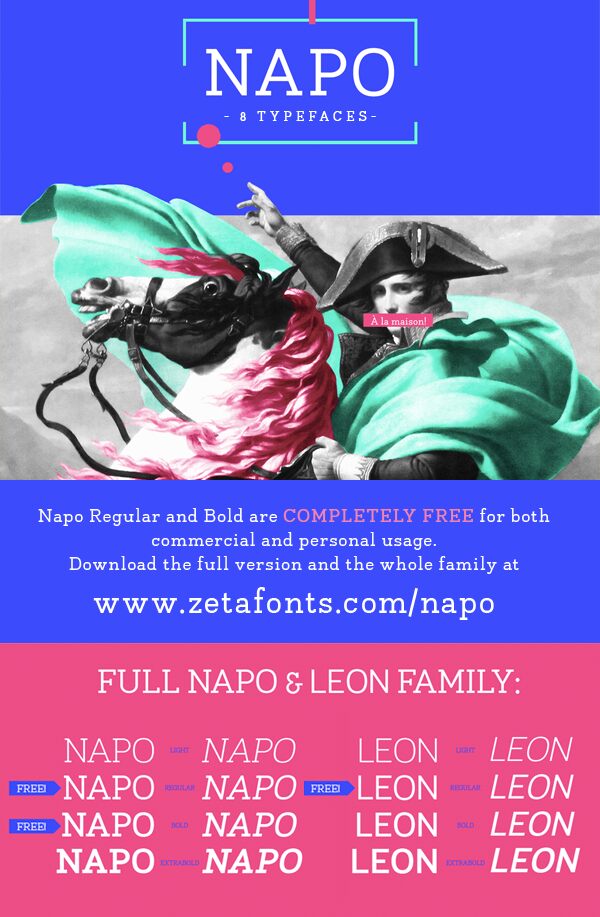
Napo is a striking slab serif typeface that commands attention. Designed by Isabella Ahmadzadeh, this versatile font boasts a harmonious blend of tradition and modernity. Its robust, geometric forms exude a sense of authority, while the soft, rounded terminals lend a touch of approachability. Napo's four weights and accompanying italics offer ample flexibility, allowing it to excel in both display and body copy applications. Complemented by its companion sans-serif, Leon, this comprehensive type family covers over forty languages, making it a suitable choice for a diverse range of design projects.
The font's distinctive personality and broad language support make Napo a compelling option for designers seeking a captivating, yet functional typeface. Its striking aesthetic lends itself well to branding, editorial design, and attention-grabbing headlines, while the versatile nature of the family ensures seamless integration into various design contexts.
Napo
Isabella Ahmadzadeh